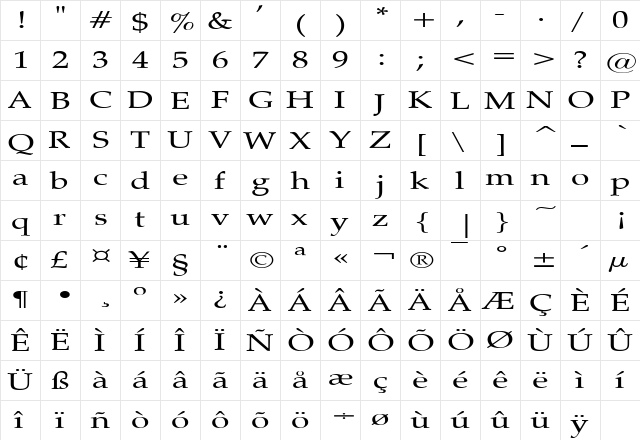
PaduaExtended Regular
Design Context for PaduaExtended Typeface
PaduaExtended offers clean, dependable letterforms without strong stylistic allegiance, making it a practical choice for designers who need flexibility.
Pro Tip: Use PaduaExtended in both headline and body roles to test its range before committing to a single application.